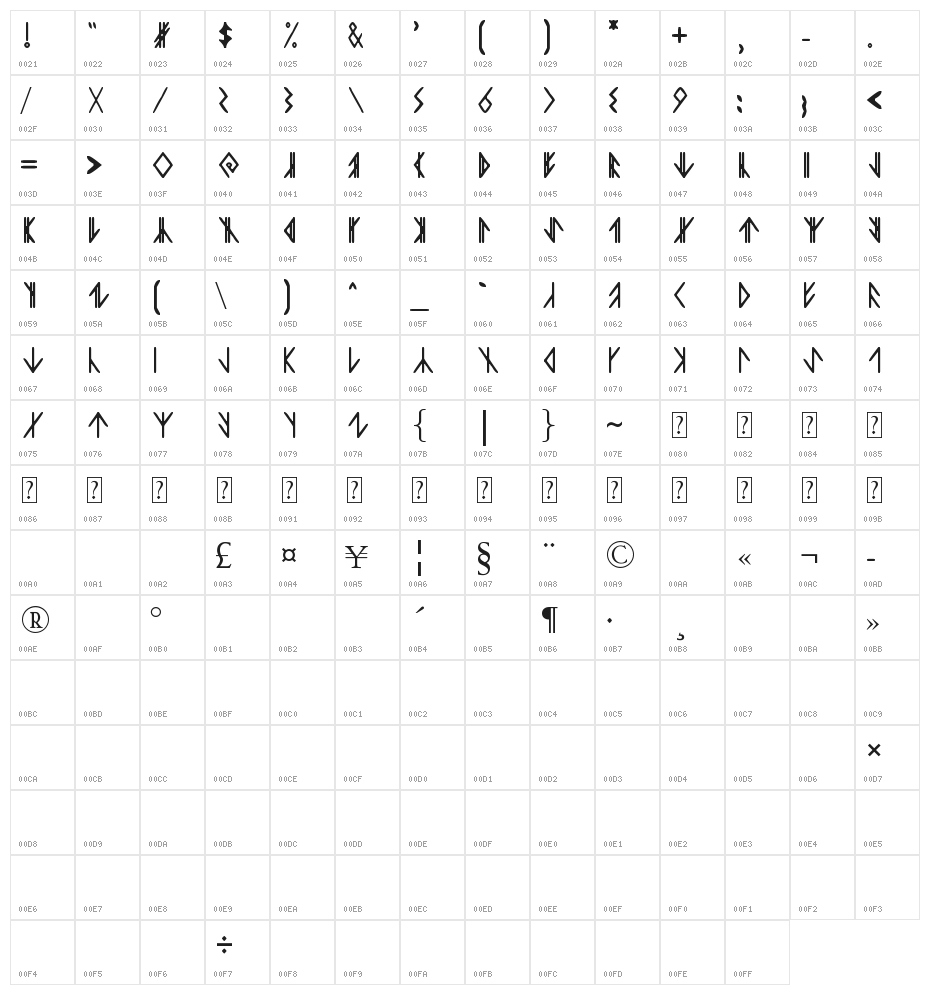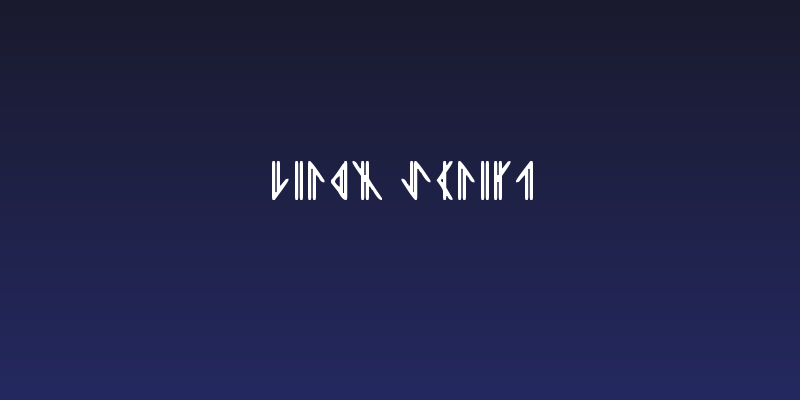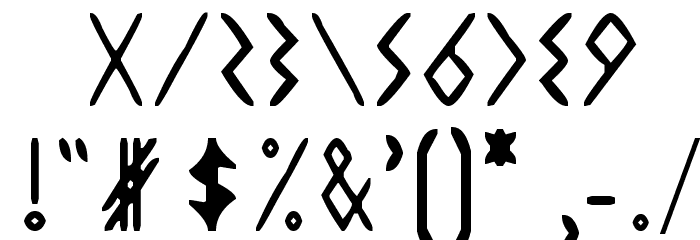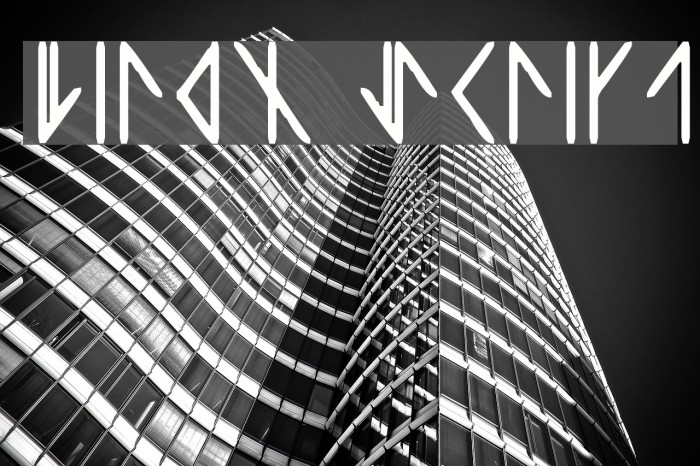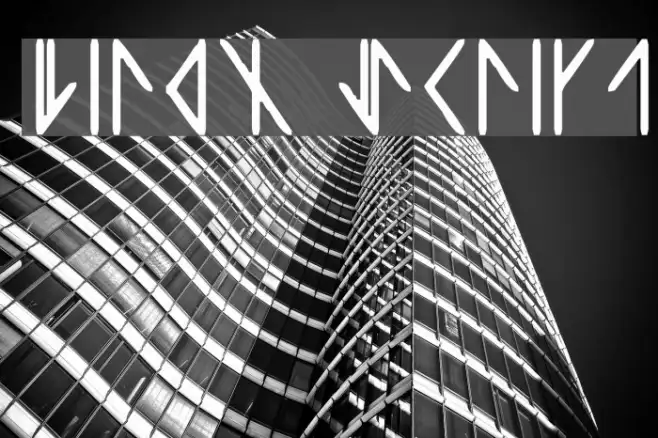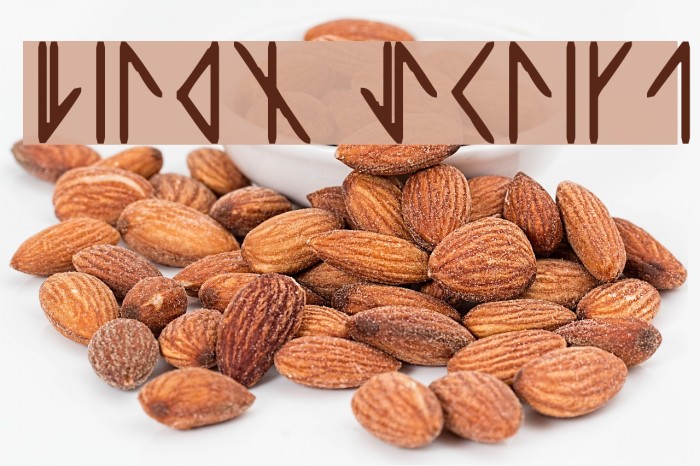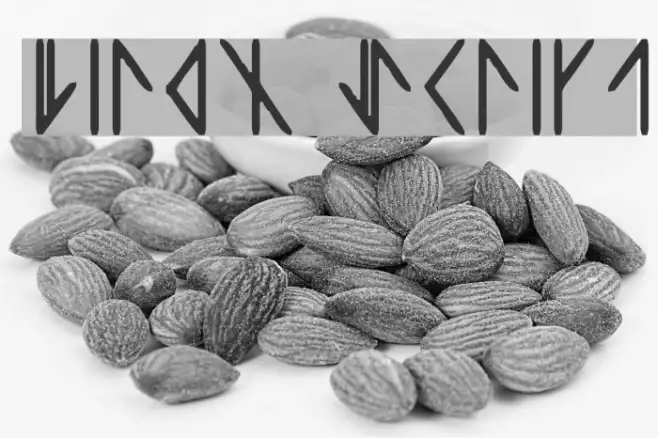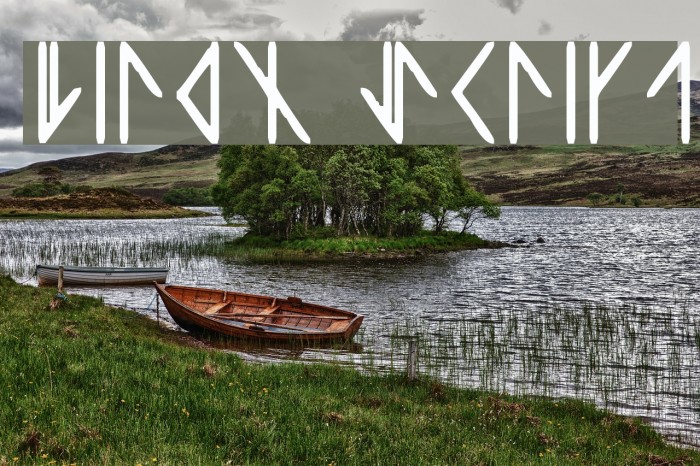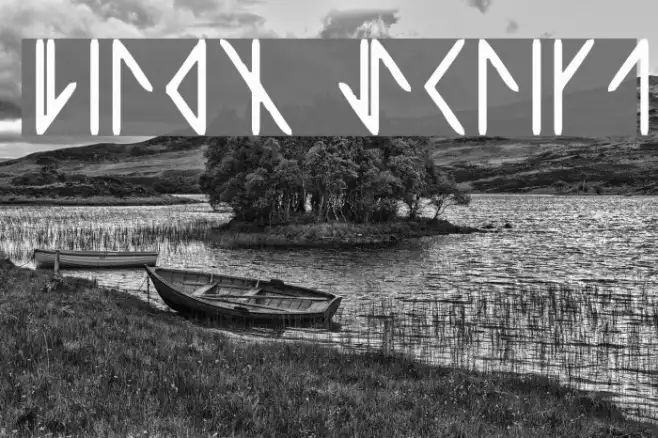
Liron Script Font
Liron Script Description
This font features a unique, angular design reminiscent of ancient runes or tribal markings. Each character is crafted with sharp lines and geometric shapes, creating a bold and striking appearance. The letters are highly stylized, with an emphasis on vertical and diagonal strokes that give the font a dynamic and energetic feel. The overall aesthetic is both modern and primitive, making it suitable for projects that require a distinctive and unconventional look. The characters are evenly spaced, ensuring readability despite their complex forms.
| Overall Style | Modern, Primitive |
| Use Case | Logos, Posters, Album covers |
| Proposed Projects | Ideal for use in fantasy-themed designs, video game graphics, or branding for alternative music bands. |